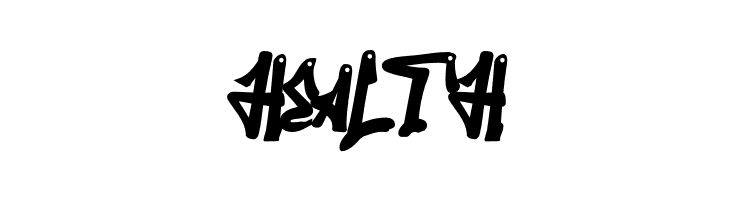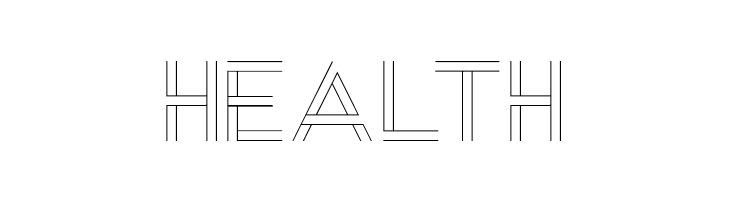
An elegant and flowing script font with ornate uppercase letters and delicate embellishments.
A bold, cursive font with a lively, handwritten style.
A playful, handwritten font with rounded edges and a casual style.
A playful, cheese-inspired font with bold, irregular outlines and cutouts.
A playful, cheese-inspired font with bold, irregular characters.
A playful script font with cheese-like holes and a whimsical, handwritten style.
A playful, bold font with rounded, thick strokes and a whimsical touch.
A playful, rounded font with a hand-drawn, casual style.
A bold, playful typeface with exaggerated curves and a whimsical style.
A bold, playful font with rounded, cartoonish characters and a hand-drawn feel.
A playful, stencil-like font with bold, irregular shapes and a modern, artistic style.
A playful, bold font with a hand-drawn, whimsical style.
A pixelated, retro-style font inspired by early digital displays.
A bold, playful font with rounded, condensed characters and a whimsical style.
A playful, rounded font with bold, smooth curves and a friendly vibe.
A playful, hand-drawn font with bold, consistent strokes and a whimsical charm.
A bold, playful font with an animal print pattern, ideal for eye-catching designs.
A bold, playful font with thick strokes and a slight italic slant.
A classic serif font with high contrast and elegant serifs.
A playful and dynamic font with geometric and whimsical elements.
A dynamic, brush-style script font with expressive strokes.
A decorative and elegant font with cursive and bold elements, perfect for artistic projects.
A dynamic and expressive script font with modern flair and fluid strokes.
A delicate and flowing script font with elegant, elongated letterforms.
A high-contrast, elegant serif font with a classic yet modern appeal.
An elegant serif font with high contrast and a refined italic style.
An outlined, geometric font with bold lines and a modern aesthetic.
An elegant outline serif font with an italic slant, offering a refined and classic appearance.
An elegant, cursive font with flowing, sophisticated letterforms.
A lively and elegant handwritten font with fluid strokes and dynamic movement.
A jagged, edgy font with sharp, angular lines for a rebellious look.
A bold, geometric sans-serif font with a modern and clean design.
A bold, textured font with a playful, hand-drawn style.